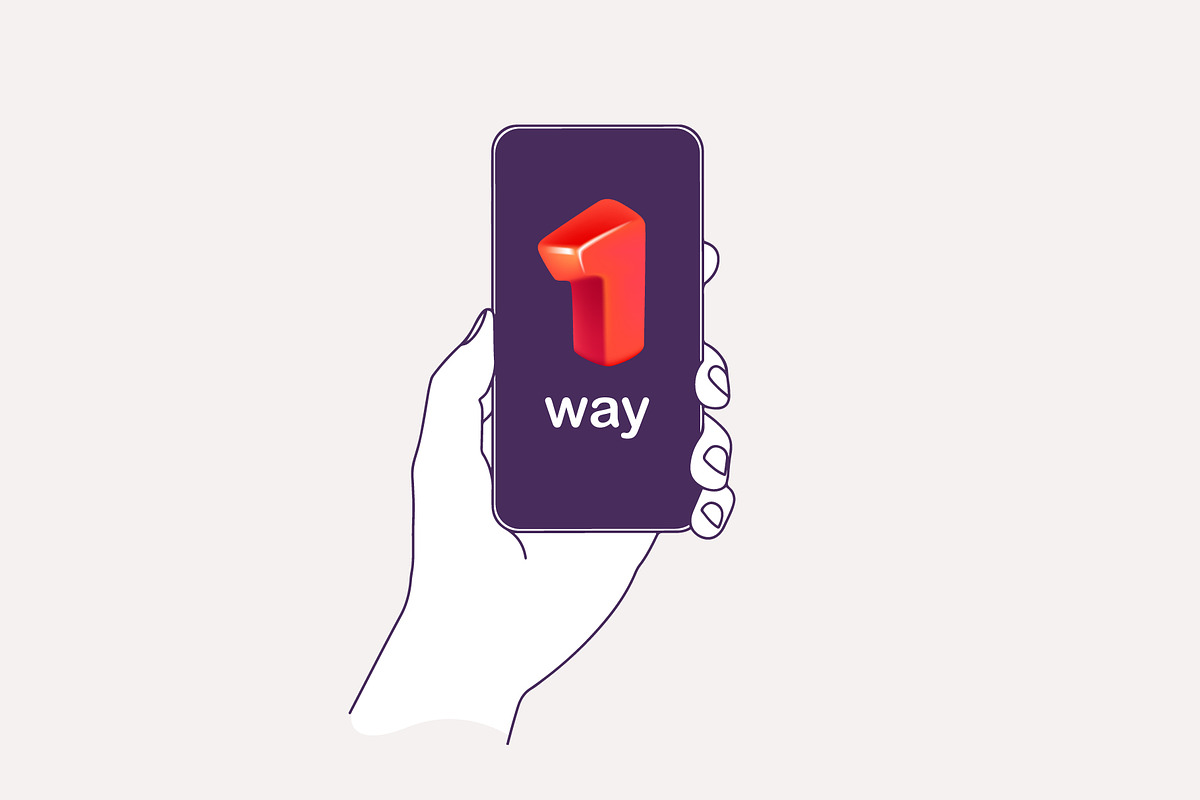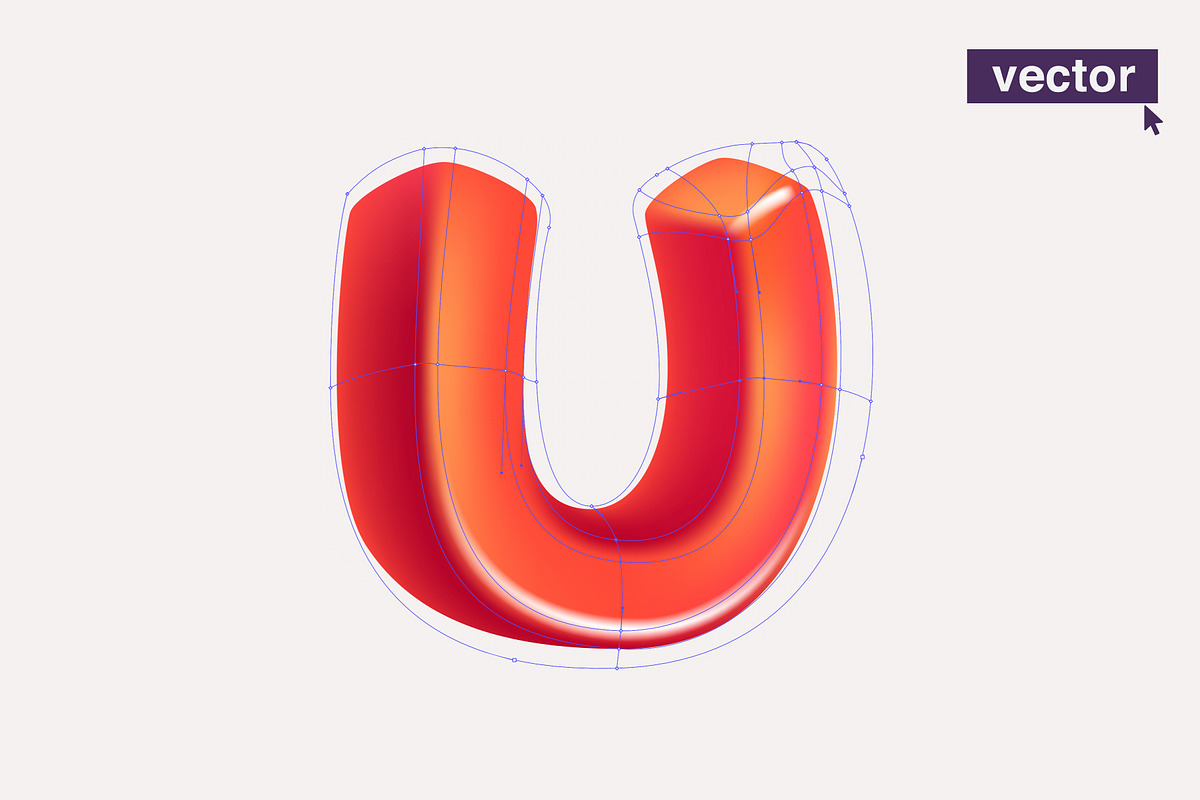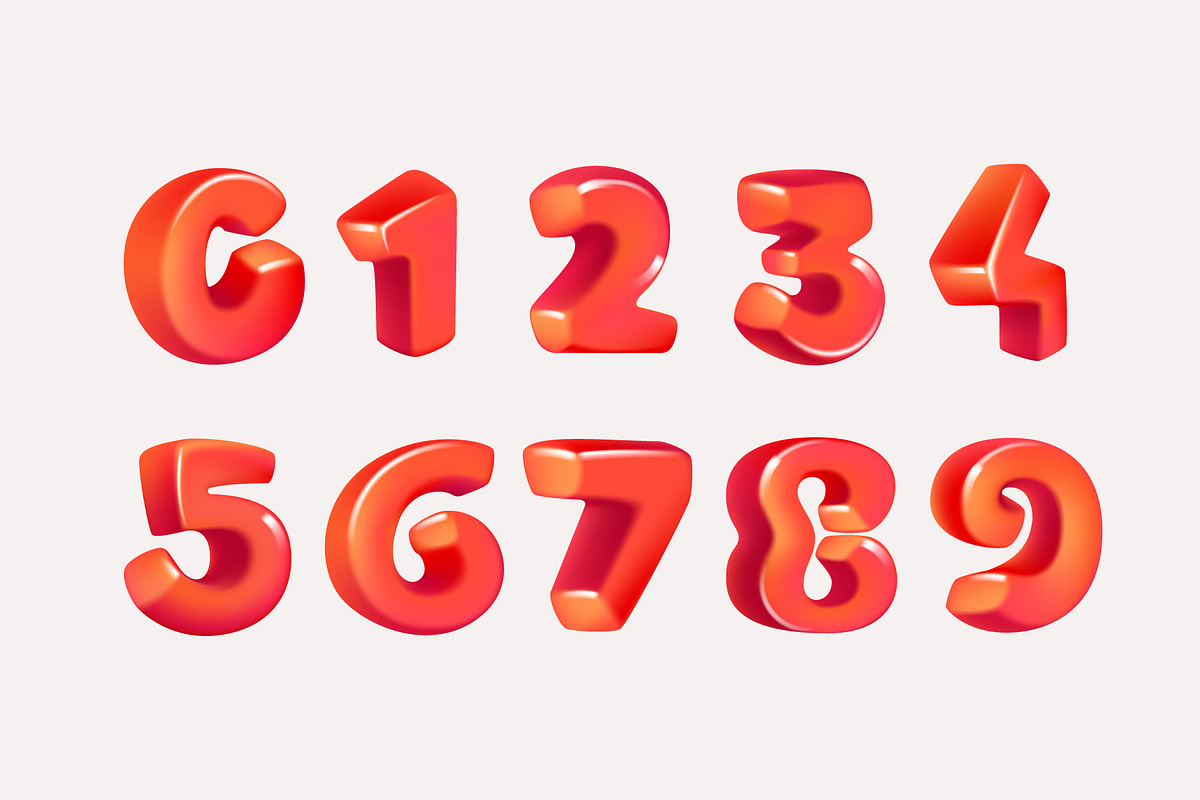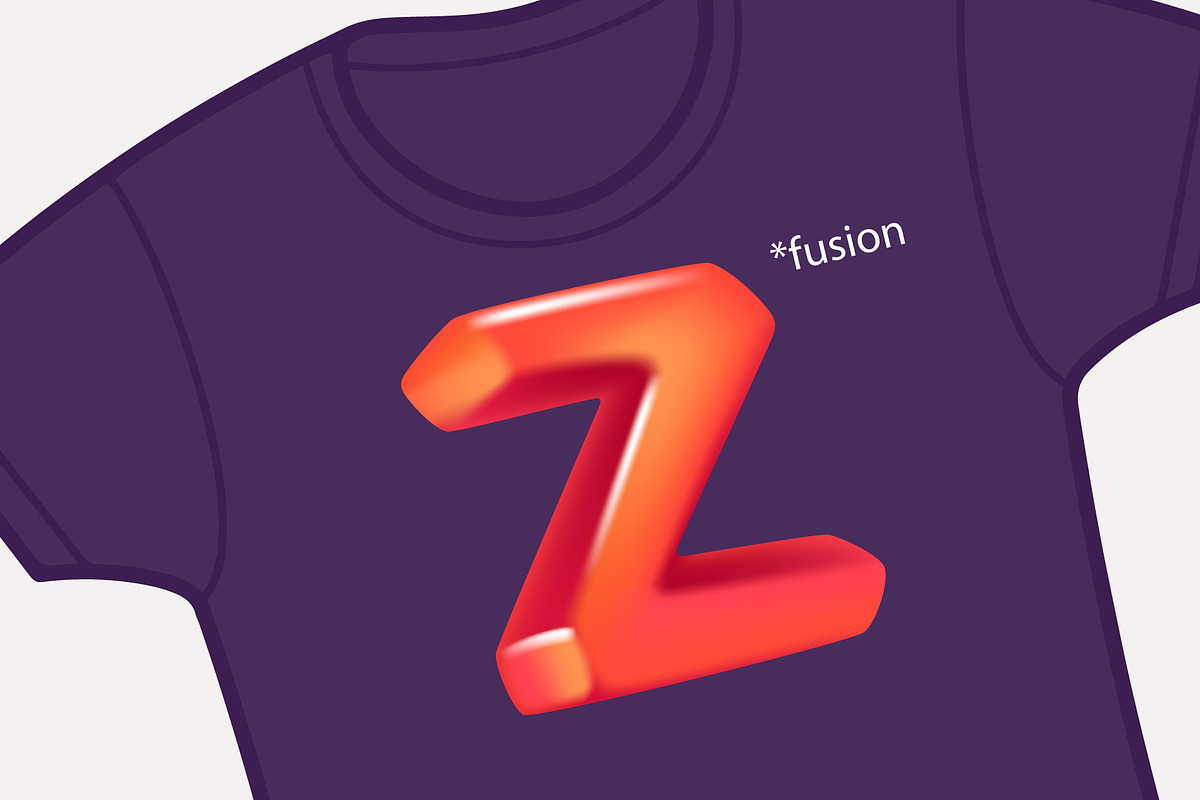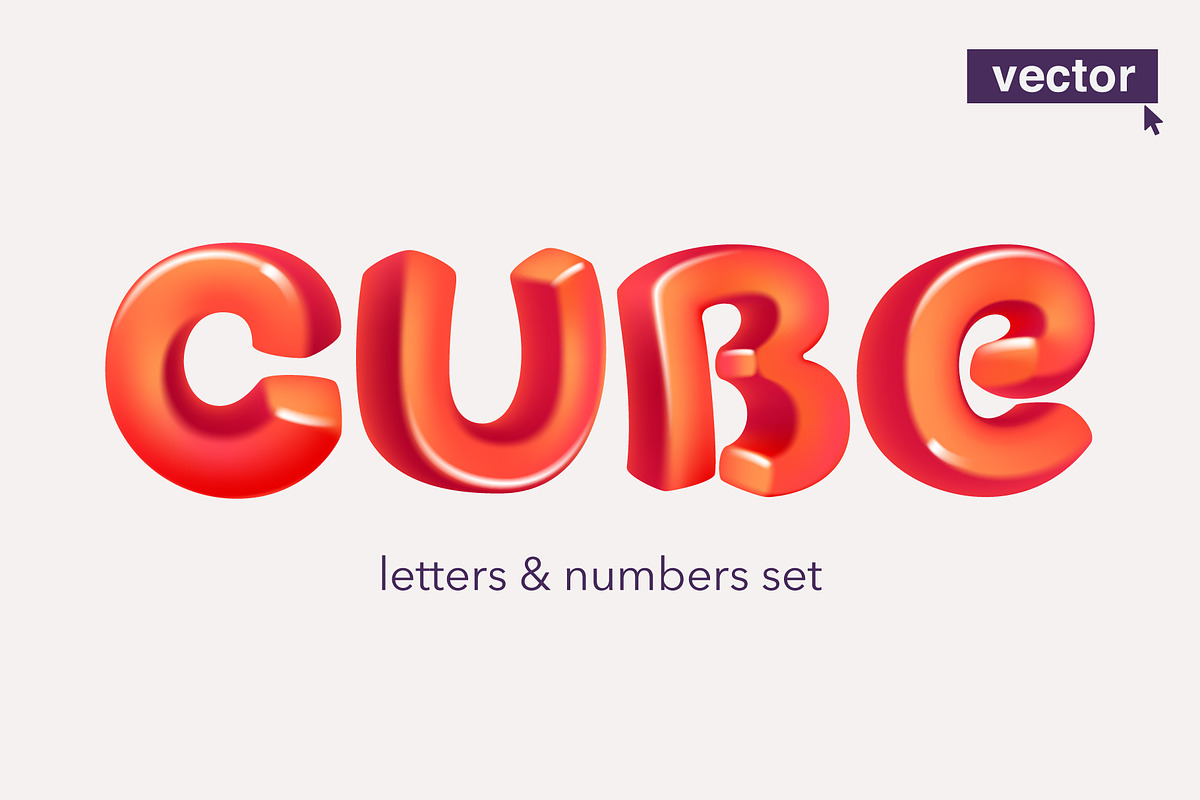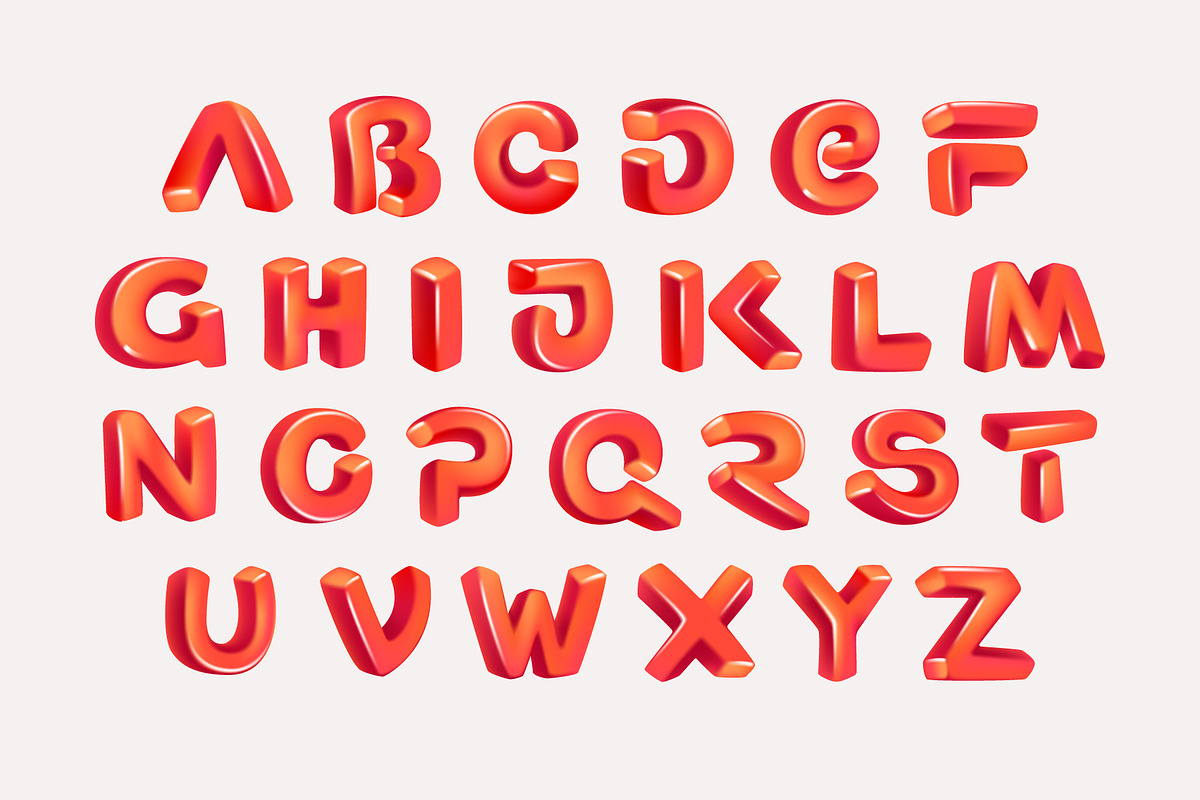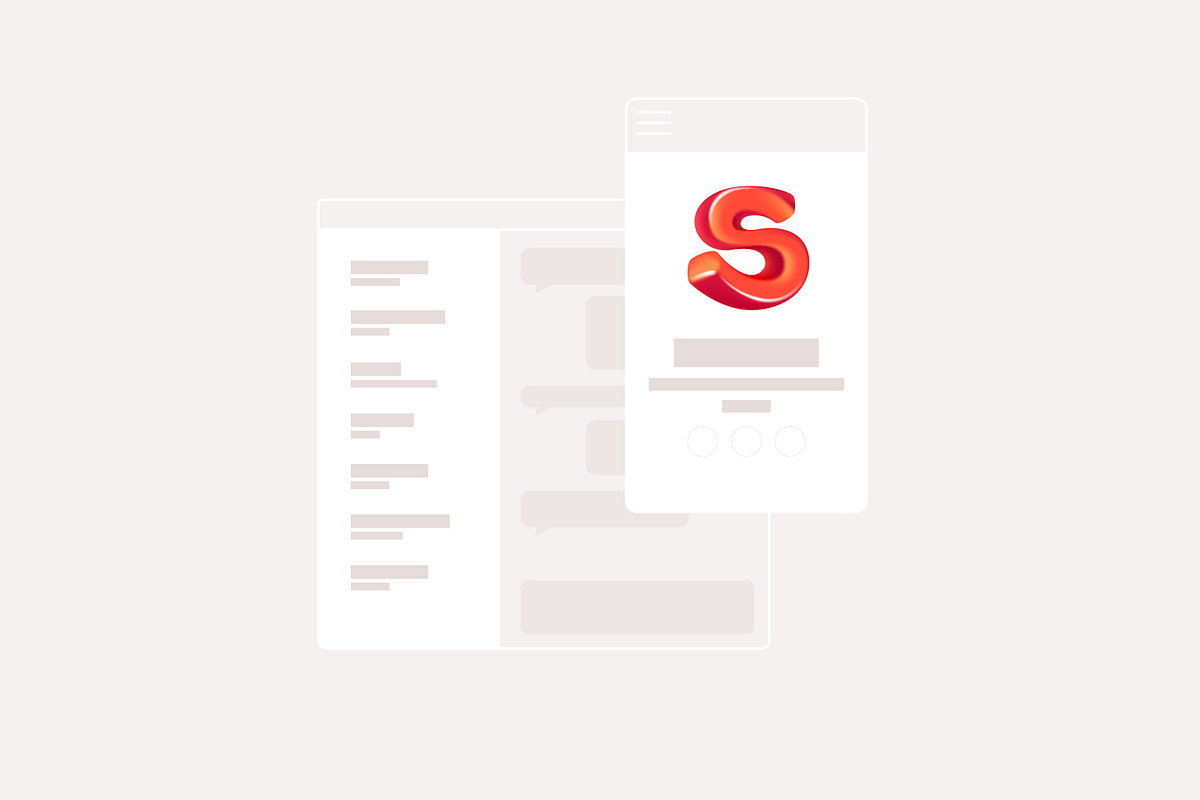
Cartoon cubic style alphabet
Alphabet and numbers set. Cartoon cubic style. Cubic vector illustration. Impossible isometric shapes. Perfect for futuristic banner, optical illusion branding, kids labels, cute birthday posters.